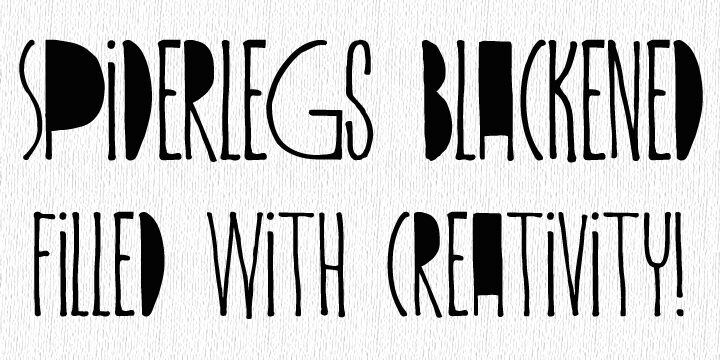
DK Spiderlegs Blackened by David Kerkhoff is a free distorted display font with towering, pinched letters and abrupt shifts between hairline strokes and dense black forms. Stretched curves give it a wiry, sinister silhouette.
Halloween posters and alternative music artwork both benefit from its mix of spindly tension and blunt weight. It also suits horror packaging and offbeat event graphics, especially when the lettering becomes part of the unsettling imagery. The same warped silhouette links these theatrical uses.